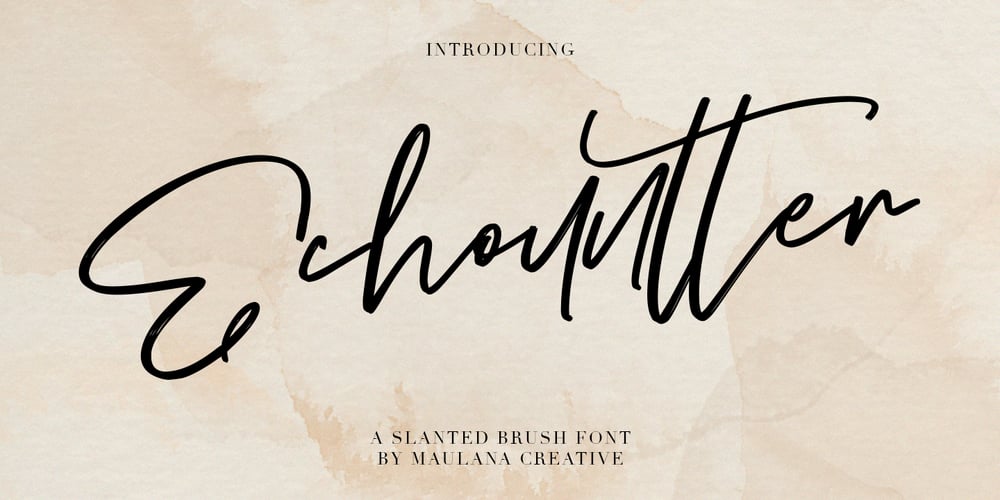
Echountter
Echountter font
Echountter Font Family was designed by Gilang Maulana and published by Maulana Creative. Echountter contains 1 styles and family package options. Give your designs an authentic handcrafted feel. “Echountter Slanted Brush Font” is perfectly suited to signature, stationery, logo, typography quotes, magazine or book cover, website header, clothing, branding, packaging design and more.Thanks for use this font ~ Maulana